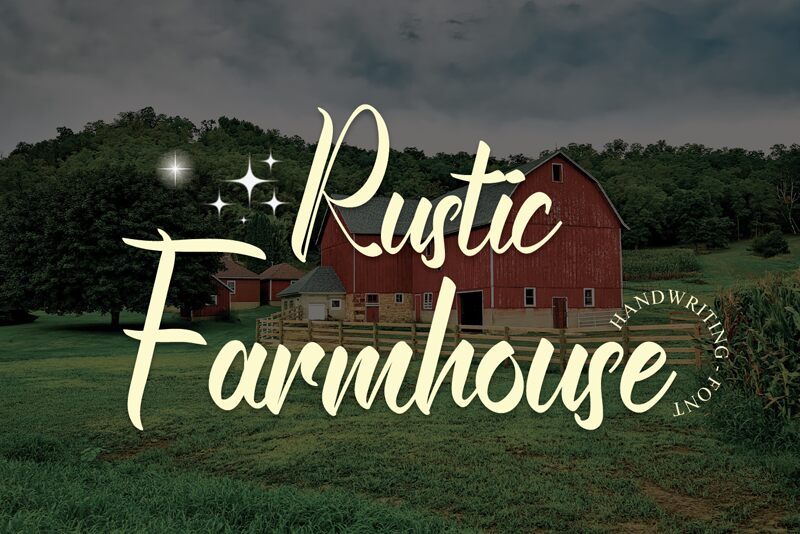
Rustic Farmhouse
Rustic Farmhouse, the epitome of vintage elegance, is a semi-light calligraphy font designed by Behind the Ink. It's perfect for projects that require a touch of sophistication and rustic charm. The curly, swirly strokes add an element of playfulness and whimsy to any design. Its versatility makes it suitable for various projects such as wedding invitations, logos, branding materials, social media graphics, and more. With Rustic Farmhouse font typeface as your choice, you can achieve a professional look with ease while keeping true to your creative vision. Upgrade your designs with this stunning font today!